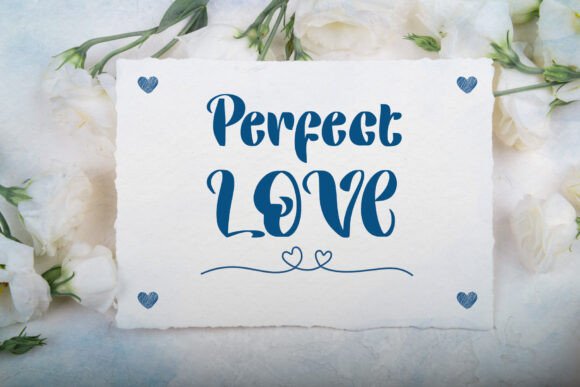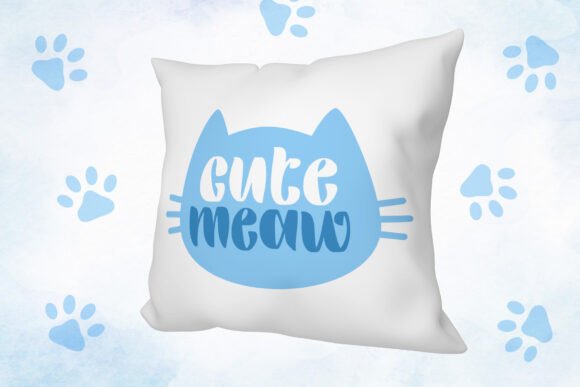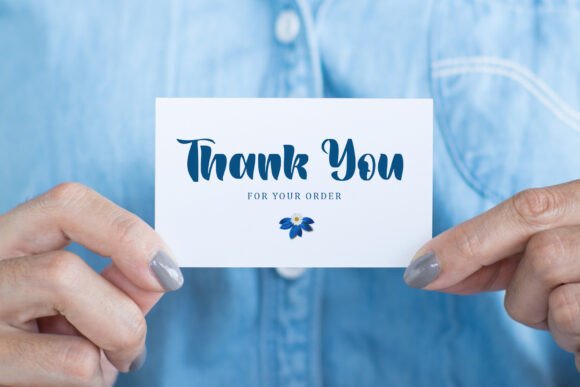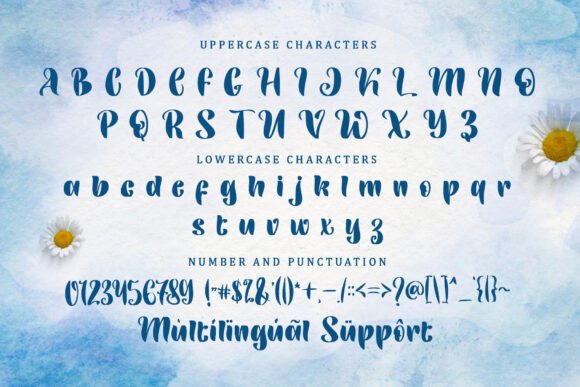
The Bulkey Font: A Designer’s Dream Come True
I still remember the time I was working on a wedding invitation project, and my client asked for a font that was elegant, yet personal. I scoured the internet, tried out countless fonts, but nothing seemed quite right. That was until I stumbled upon Bulkey, a beautiful handwritten font that captured the essence of what I was looking for. Its gentle curves and refined lines made it an instant favorite, and I’ve been hooked ever since.
What Makes Bulkey Special?
Bulkey is more than just a font – it’s an artistic expression that brings a touch of authenticity to your designs. Its unique charm makes it perfect for intimate projects such as greeting cards, wedding invitations, or personal branding. With Bulkey, you can add a personal touch to your creations, making them truly unforgettable.
What I Love About Bulkey ✨
- 💕 Elegant and refined lines that exude sophistication
- ✅ Perfect for handwritten-style designs, such as wedding invitations and greeting cards
- 🎨 Highly versatile, suitable for a wide range of creative projects
- 🔥 Unique charm that sets it apart from other fonts
- ⚠️ May not be suitable for large-scale or bold designs, as it can lose its elegance
- 🤔 Limited availability of certain characters or glyphs, but this can be overcome with OpenType features
The Designer Inspiration Behind Bulkey
Bulkey was inspired by the authentic strokes of handwritten words. Its creator, a talented typographer, aimed to capture the essence of traditional handwriting in a digital font. The result is a beautiful, elegant font that brings a touch of personality to any design.
| Font Name | Bulkey Font |
| Author | Sakha Design |
| What is Bulkey font? | Bulkey is a beautiful, handwritten font inspired by traditional handwriting. |
| What is Bulkey suitable for? | Bulkey is perfect for intimate projects, such as greeting cards, wedding invitations, and personal branding. |